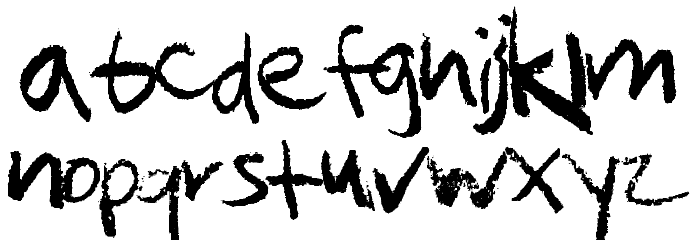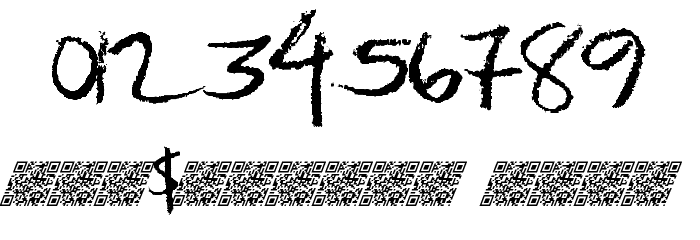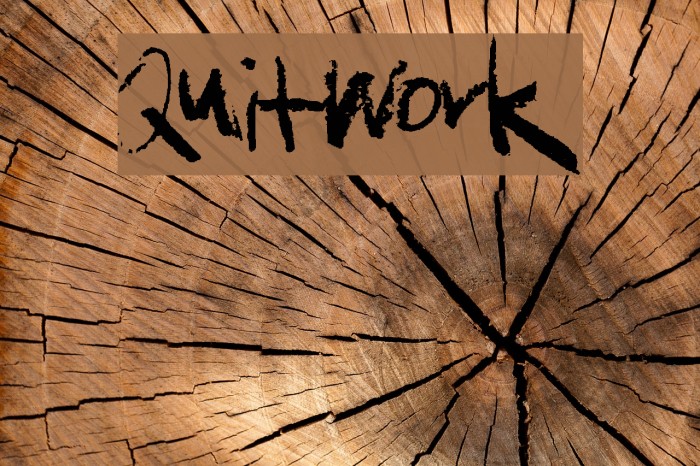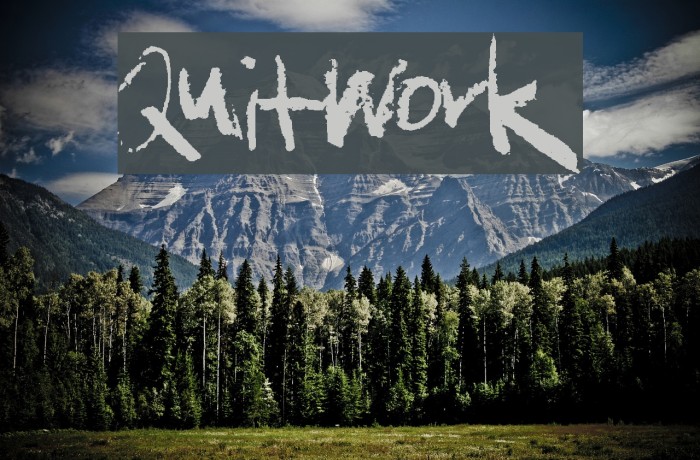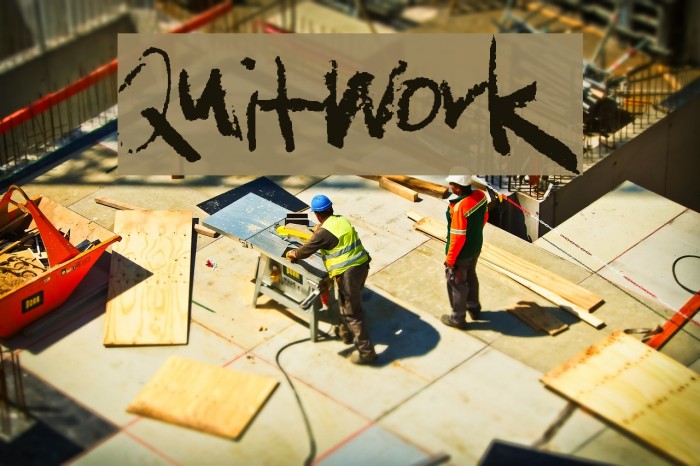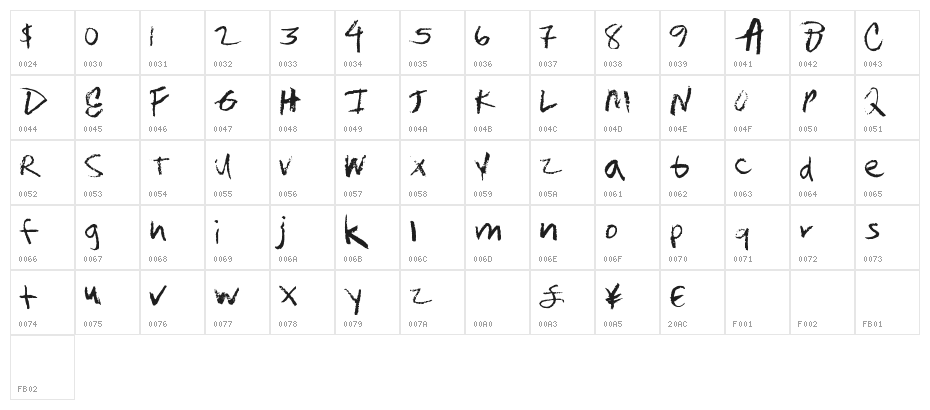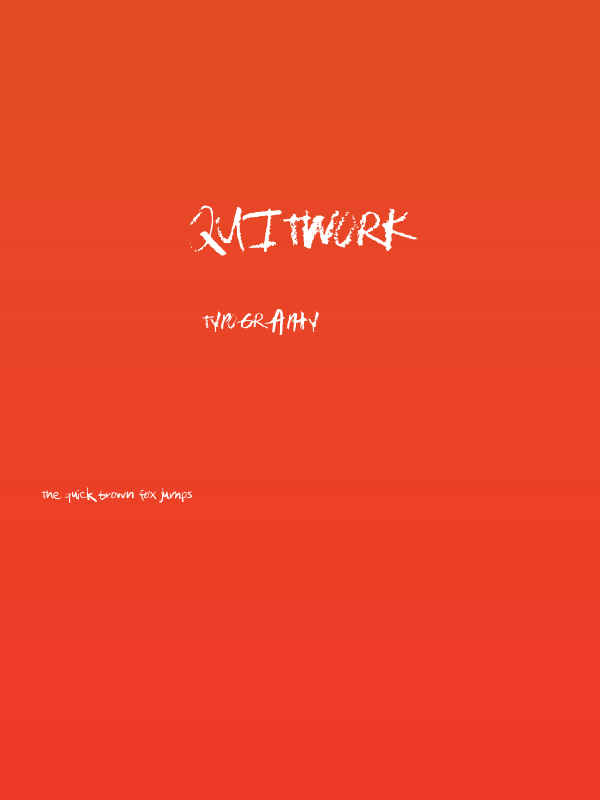
QuitWork Font
This font exhibits a bold, expressive style with a hand-drawn, brush-like appearance. The strokes are uneven and dynamic, giving it a raw, energetic feel. Each character is unique, with varying thickness and a slightly rough texture, reminiscent of graffiti or street art. The uppercase and lowercase letters maintain a consistent style, while the numbers and special characters blend seamlessly with the overall aesthetic. This font is ideal for projects that require a personal, artistic touch, such as posters, album covers, or creative branding.
A bold, expressive, hand-drawn font with a brush-like, graffiti-inspired style.
- Proposed Projects: Ideal for posters, album covers, creative branding, and artistic projects.